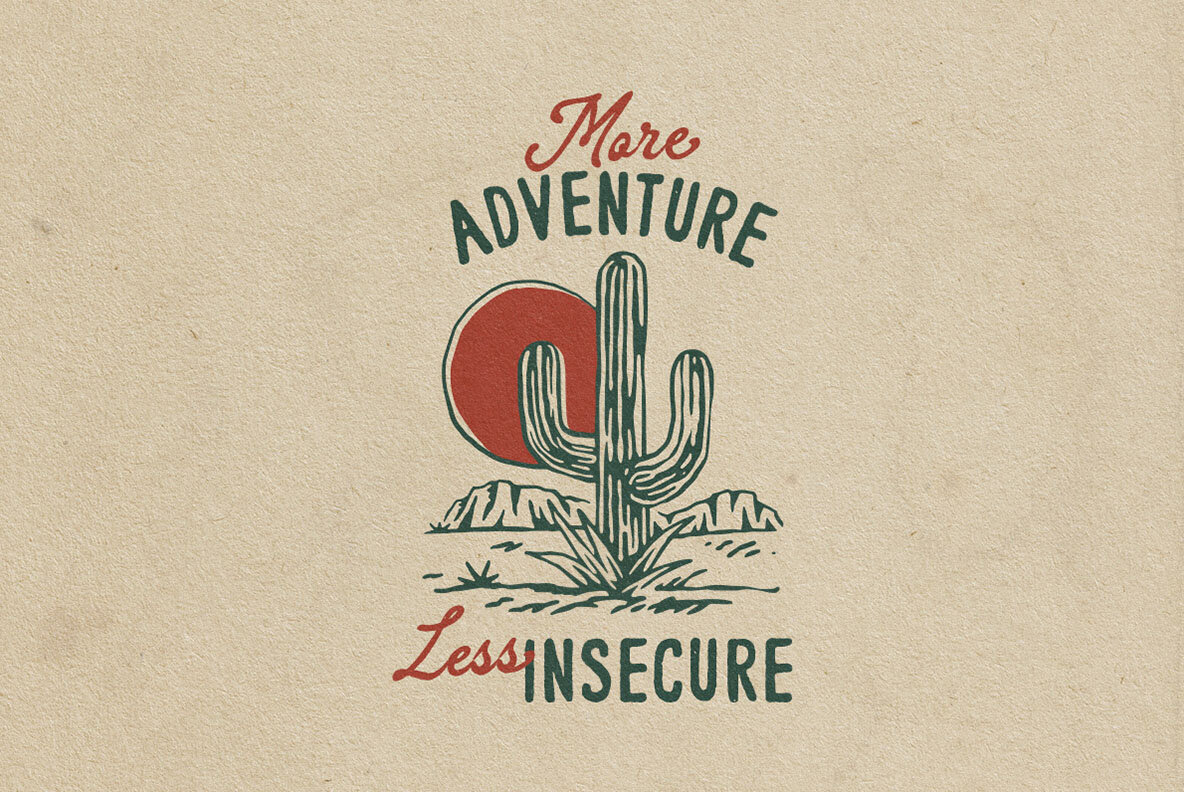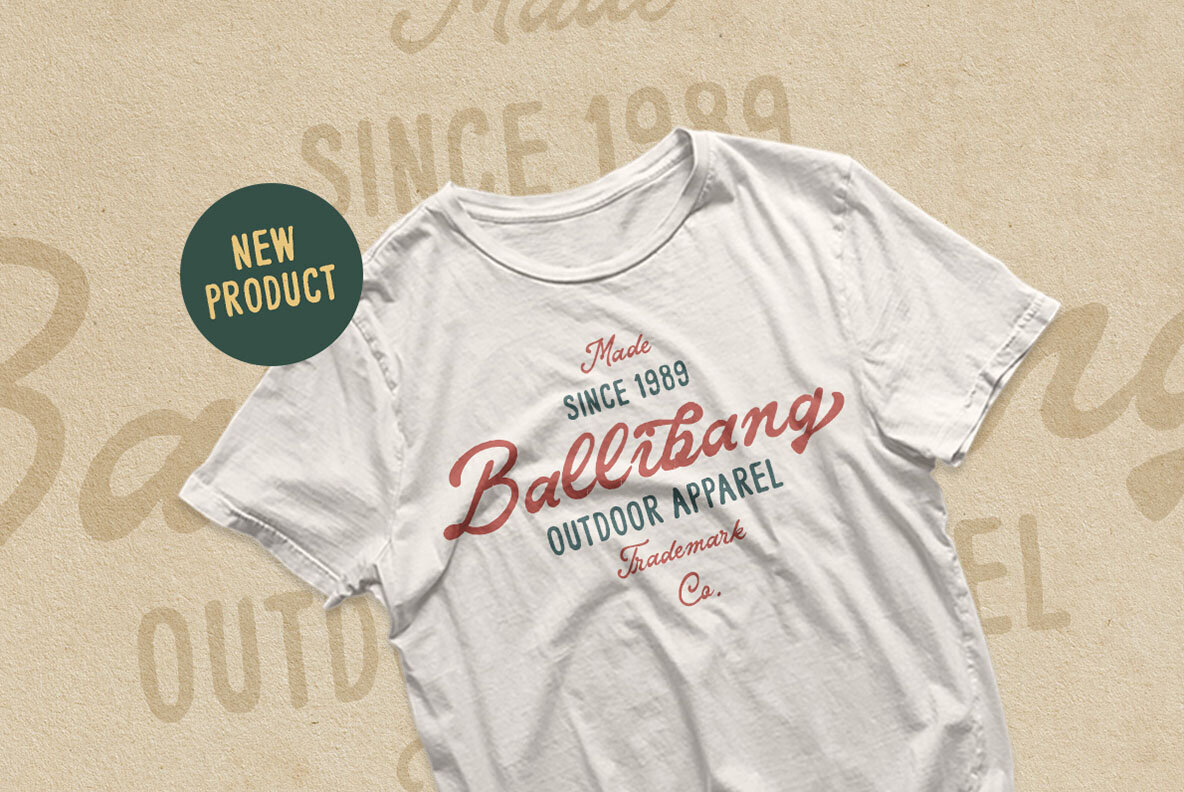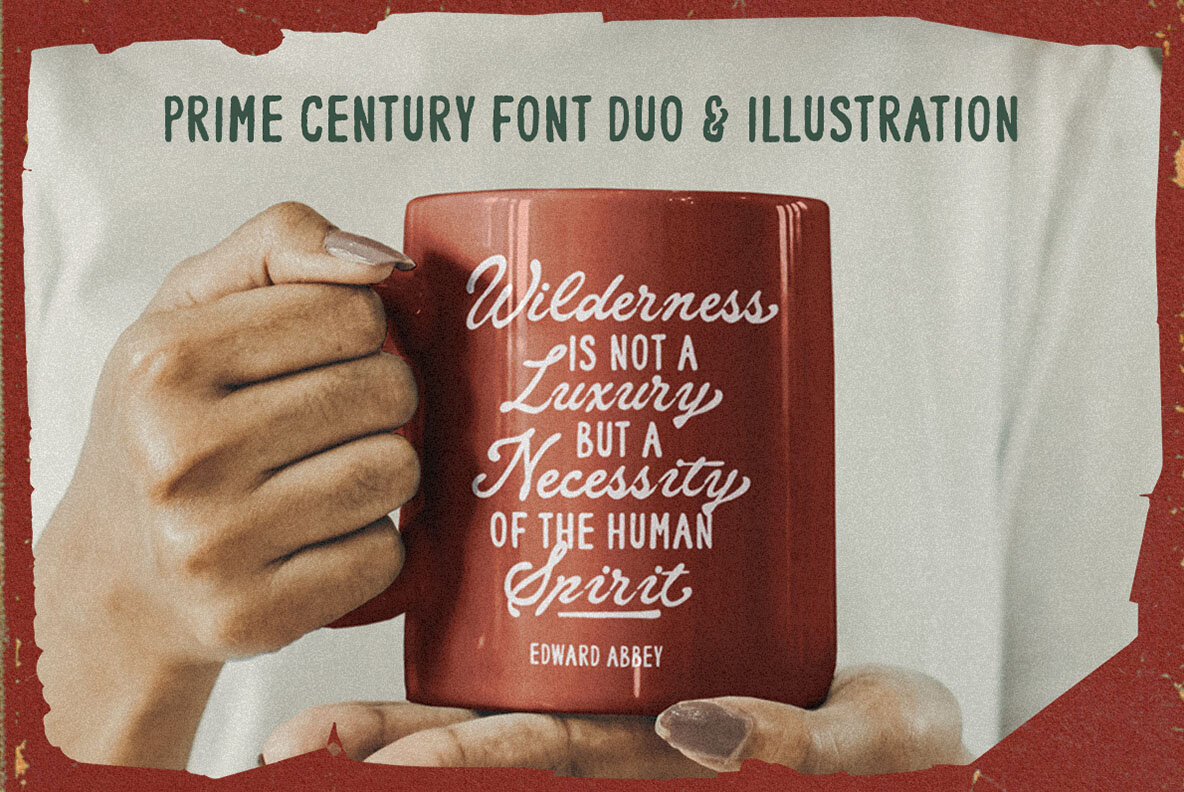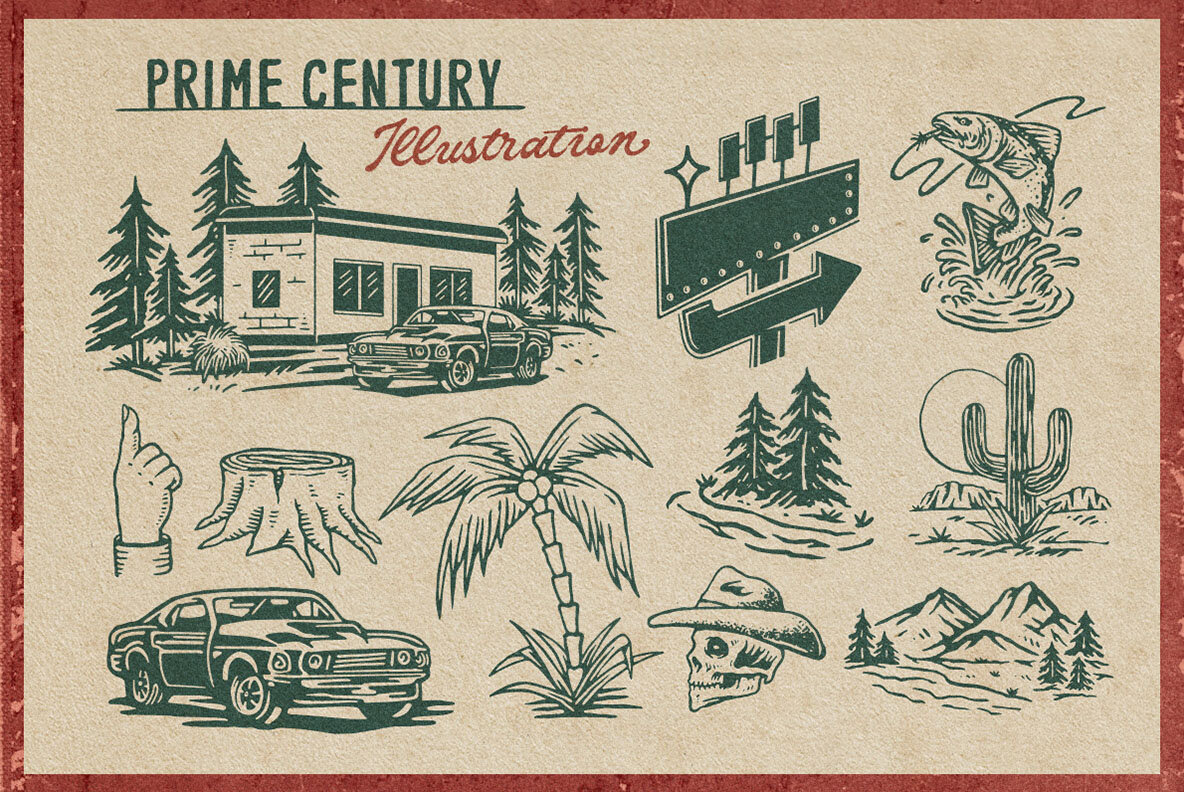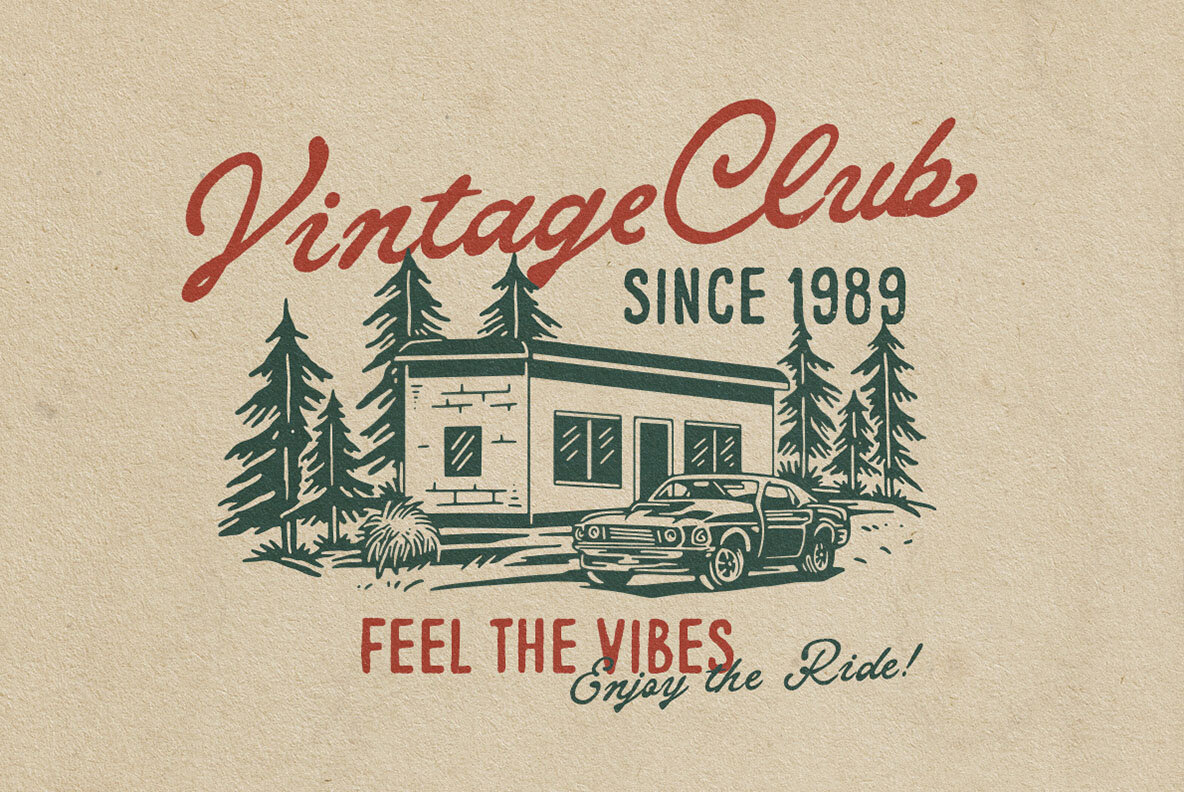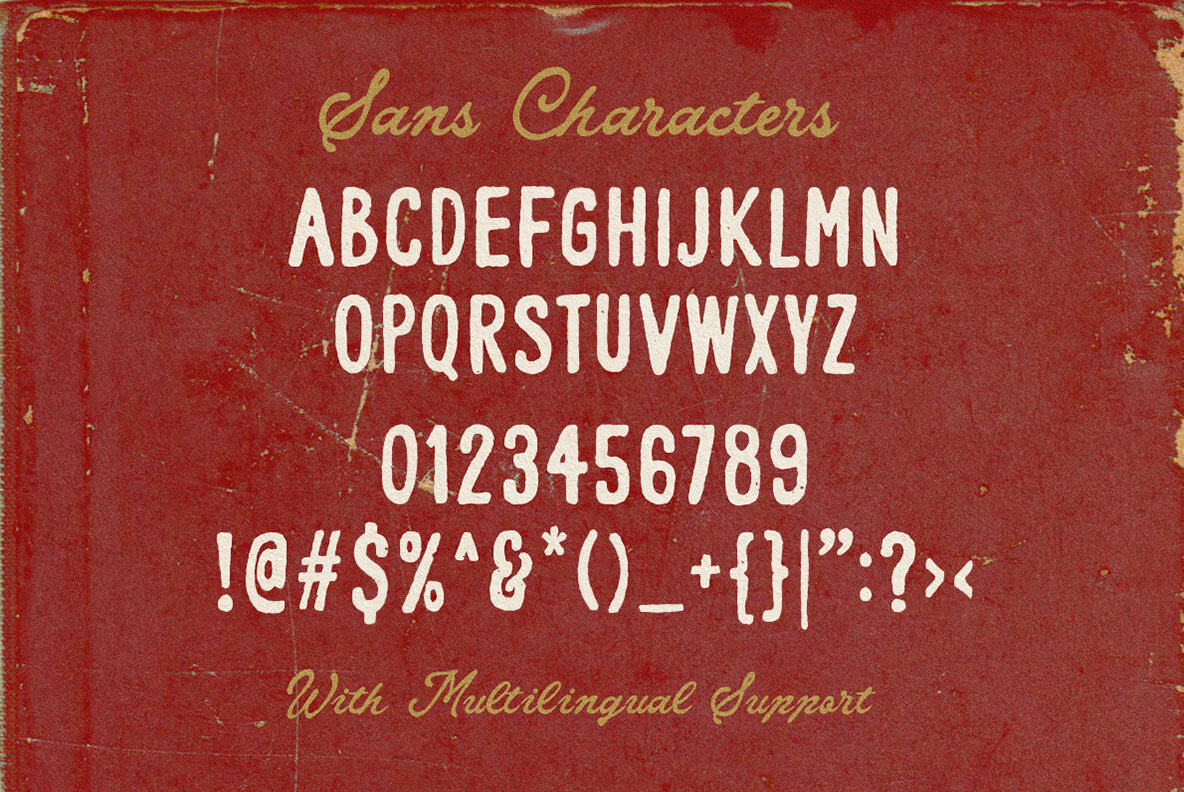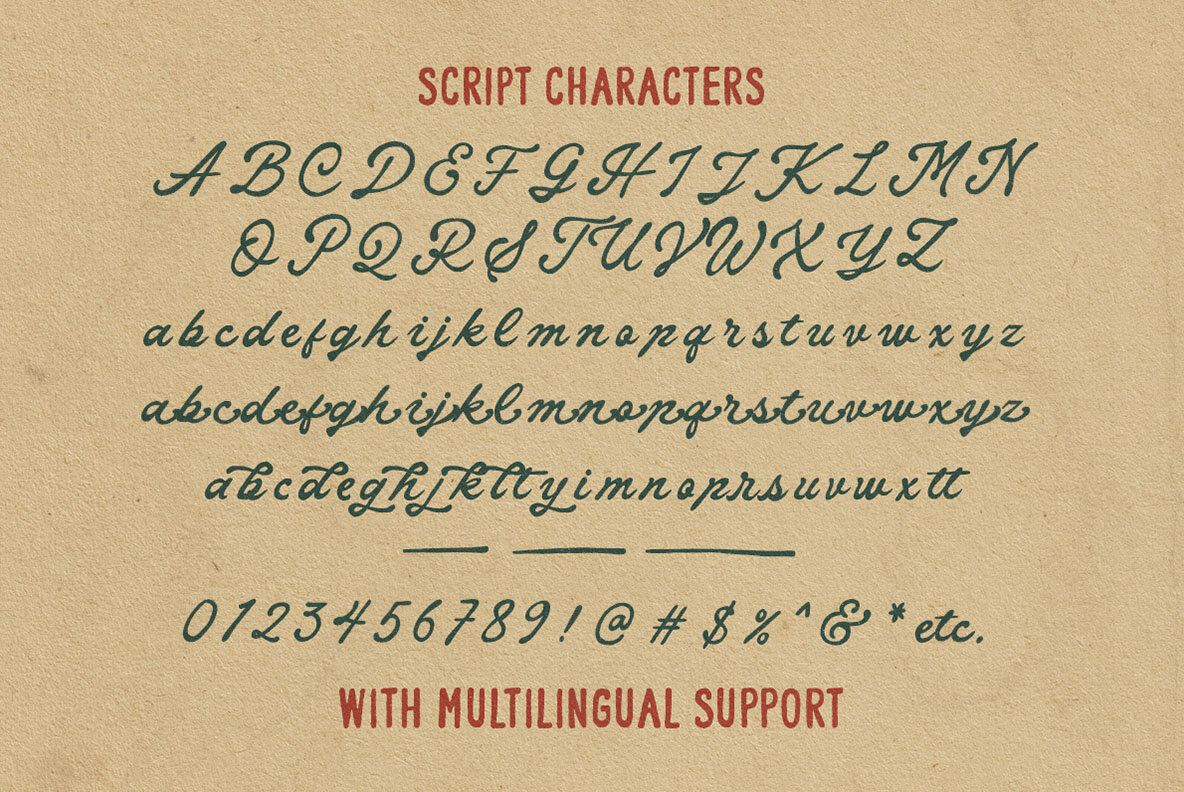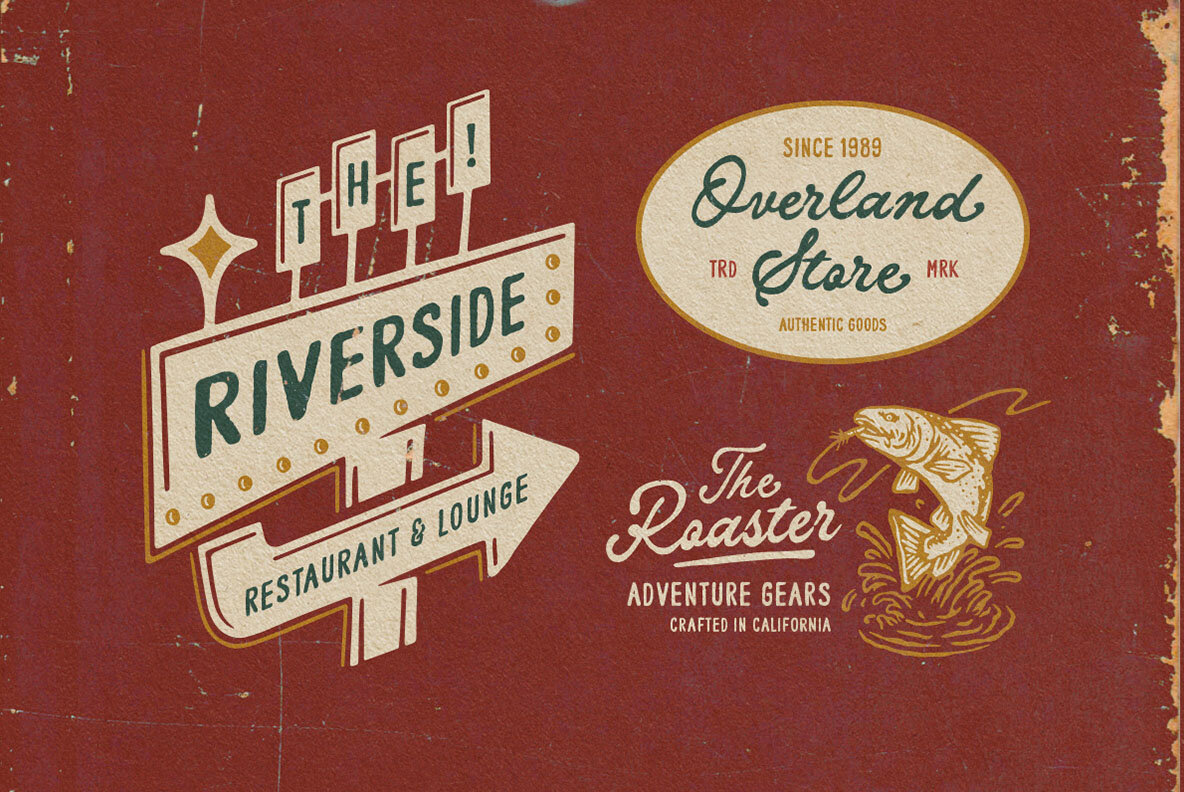
Prime Century Font
Prime Century is a distinctive, hand-drawn font duo featuring a script paired with a sans serif, exuding a classic look and feel. Ideal for logos, headlines, signage, and various formal applications such as invitations, labels, magazines, books, greeting cards, wedding cards, packaging, fashion, stationery, novels, and advertising purposes. We recommend using programs that support OpenType features and Glyphs panels, such as Adobe applications and Corel Draw, to access all glyph variations.Prime Century: Classic Hand-Drawn Font Duo